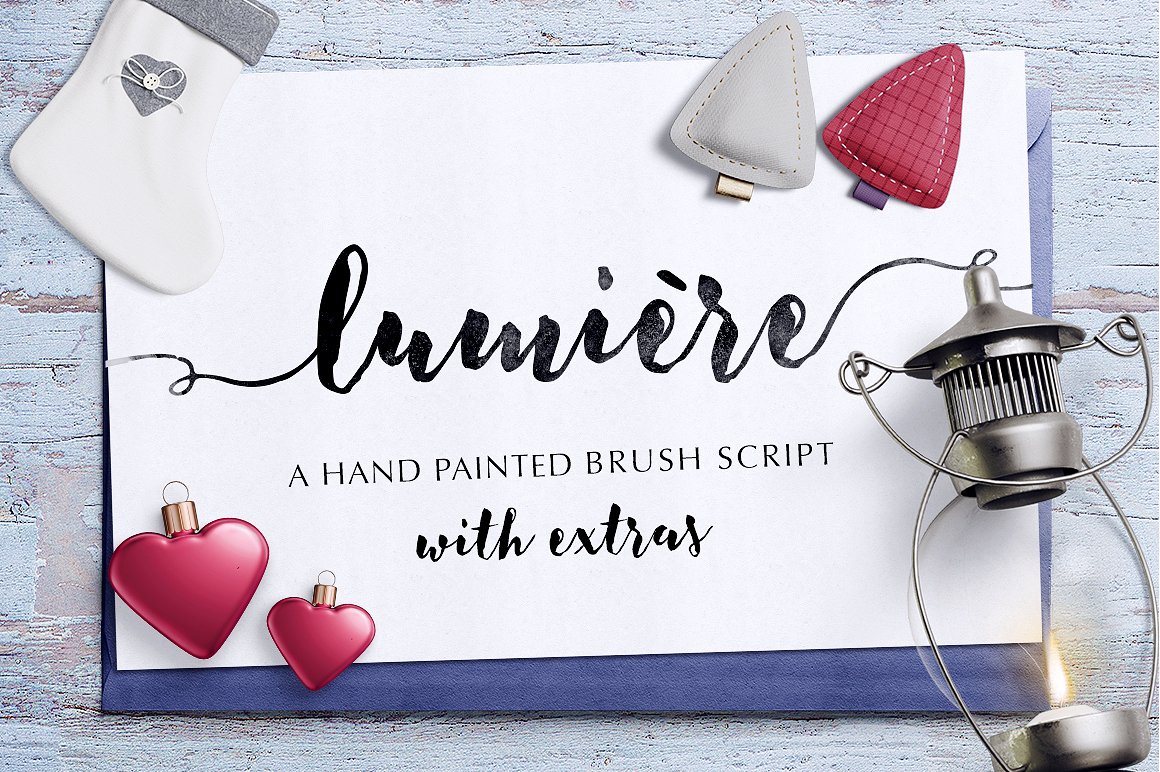
Lumiere Brush Font
Lumiere is a hand painted font that comes with 2 different styles perfect for your invitations, labels, newsletters, web, headings, stationary or any other projects.
Lumiere Script is very much a hand made script with a nice flow and a rough edges, given by the brush.
Lumiere Block is a complementary hand brush font designed to work together in harmony with Lumiere Script.